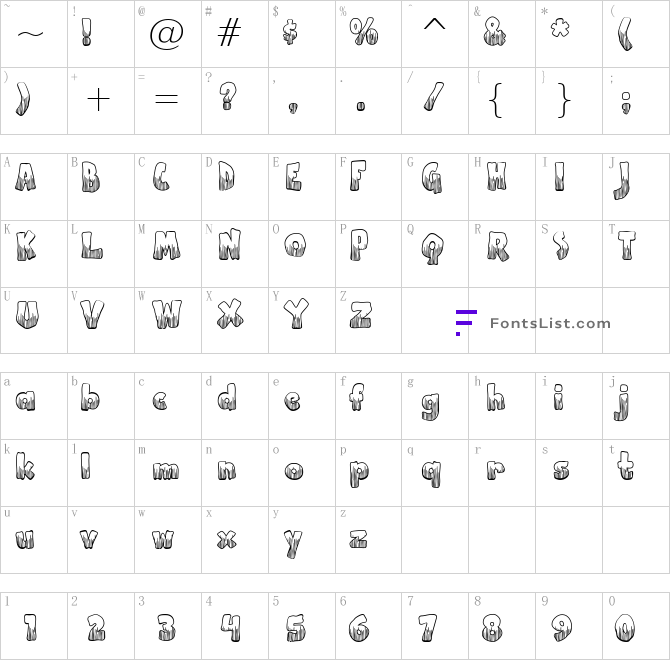
- Font Name:Apple Boy BTN Scratch
Apple-Boy-BTN-Scratch.ttf is a very beautiful artistic font, Apple-Boy-BTN-Scratch.ttf is widely used in the design and printing of various books and pictures,Apple-Boy-BTN-Scratch.ttf has a strong visual impact,Apple-Boy-BTN-Scratch.ttf is a commonly used font in newspapers, magazines and books, and is used in posters, e-commerce Poster design, store design, logo design, font design and other fields.Apple-Boy-BTN-Scratch.